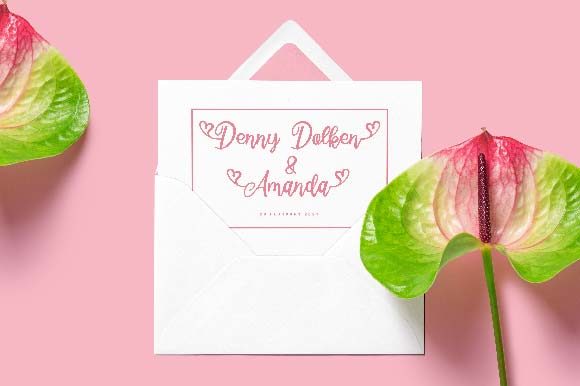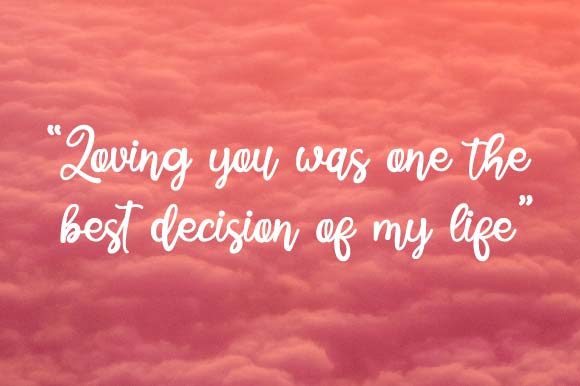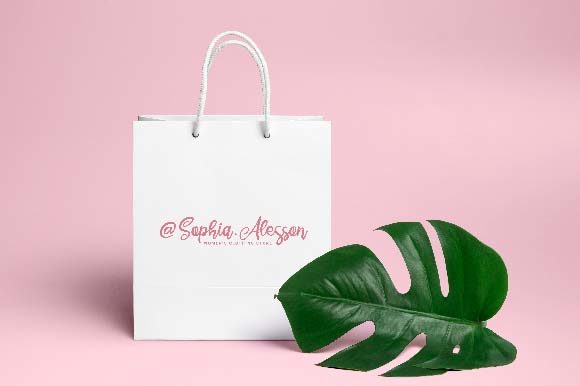
Introduction to Malistiona Font
Do you remember that moment when you stumbled upon the perfect font for your design project? The one that elevates your idea from good to great? For designers, finding the right font can be a game-changer. It’s the difference between a beautiful, cohesive design and one that falls flat. That’s why we’re excited to introduce you to the Malistiona Font, a delicate and elegant handwritten font that’s sure to capture your heart.
With its distinct and well-rounded letters, the Malistiona Font is a masterpiece that’s perfect for creating high-quality designs. Whether you’re working on a creative project that requires a touch of sophistication or a free download for a client, this font is sure to impress. And with its transparent background, you can easily integrate it into your design without any hassle.
Key Features of Malistiona Font
- High-quality design resource for creative projects, suitable for various applications.
- Features a unique and modern design aesthetic, making it an ideal choice for innovative projects.
- Includes a transparent background, allowing for easy integration into various design elements.
- Designed with high resolution (300 DPI) for optimal clarity and legibility.
- Malistiona Font comes in a range of font sizes, from 12 to 72 points, catering to diverse design needs.
- Perfect for use in graphic design, digital art, and other creative pursuits, offering a unique touch to any project.
Honest Review: Malistiona Font
As a designer, I’m always on the lookout for high-quality design resources to elevate my creative projects. Recently, I had the chance to try out the Malistiona Font, and I’m excited to share my honest review.
- Unique and creative design: The Malistiona Font boasts an eye-catching, modern design that’s perfect for making a statement in your projects.
- High-quality rasterization: The font’s high-quality rasterization ensures that it looks crisp and clear, even at larger sizes.
- Transparent background: The font’s transparent background makes it easy to use with images and other design elements.
- Limited font weights: The Malistiona Font only comes in a few font weights, which may limit its versatility in certain design projects.
Overall, I think the Malistiona Font is a great addition to any designer’s toolkit. While it may have some limitations, its unique design and high-quality rasterization make it a valuable resource for any creative project.
For the best results, use the Malistiona Font in conjunction with a high-quality image or background to create a visually appealing design. Experiment with different font sizes and colors to achieve the desired effect.
The Malistiona Font is ideal for creative projects, such as logo designs, social media graphics, and presentation slides. Its unique style and high-quality design make it a popular choice among designers and artists.
Alternatives to Malistiona Font
The Great Vibes Font is a beautiful, elegant script font perfect for creative projects that require a touch of sophistication. It’s available for free download and features a transparent background, making it ideal for designs where you need to see the background image or color. Great Vibes Font is great for invitations, wedding designs, and other high-end projects.
Compared to Malistiona Font, Great Vibes Font has a more refined and polished look, making it suitable for formal events and luxury brands. However, it may lack the quirky charm that Malistiona Font offers.
Does the Malistiona Font have a transparent background?
No, the Malistiona Font does not have a transparent background. The font’s design is a solid, high-quality image that is suitable for use in a variety of creative projects. If you need a font with a transparent background, you may want to consider other design resources available on our website.